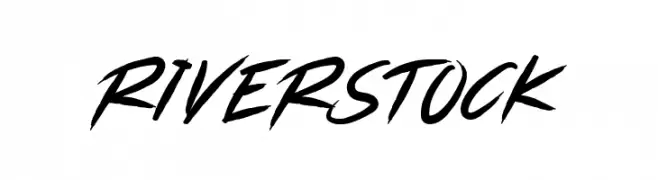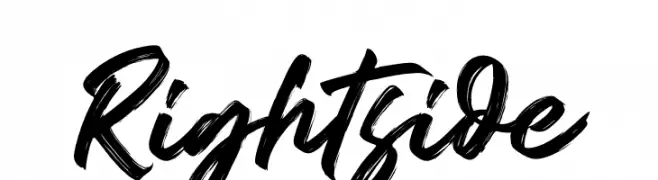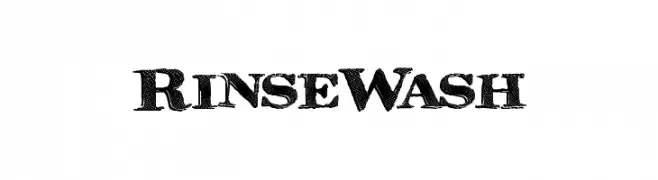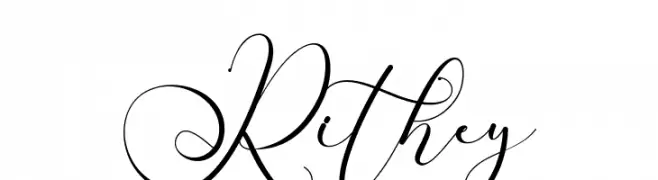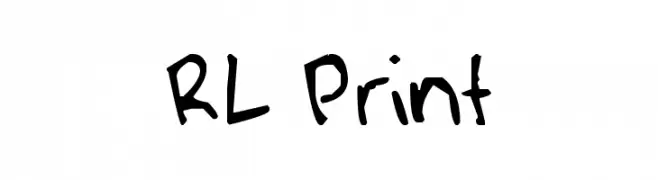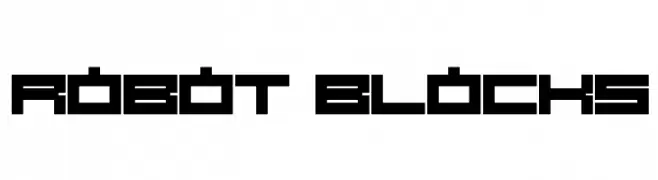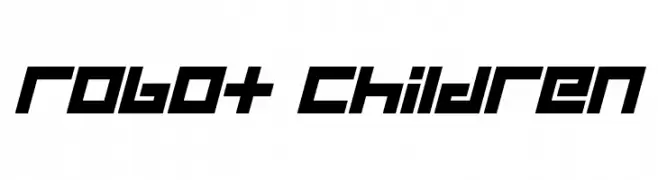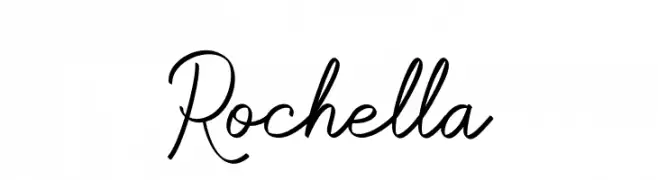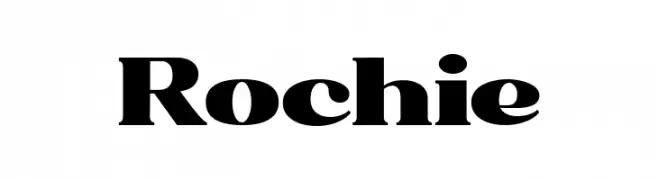
• Rightside
A bold, brush-style font with dynamic and expressive strokes.
• RinseWash
A bold, textured serif font with a vintage, distressed style.
• Rithey
An elegant script font with intricate, flowing letterforms and decorative swirls.
• RIVERSTOCK
A bold, energetic script font with dynamic, sweeping strokes.
• RL Print
A playful, hand-drawn font with a lively and informal style.
• Robot Blocks
• Robot Children
A bold, angular font with a futuristic and geometric style.
• Rochella
A graceful script font with flowing, connected strokes and elegant curves.
• Rochie
A bold, high-contrast serif font with sharp serifs and a dramatic style.
• RockFontsOne
A decorative symbol and illustration set with bold, eclectic designs.